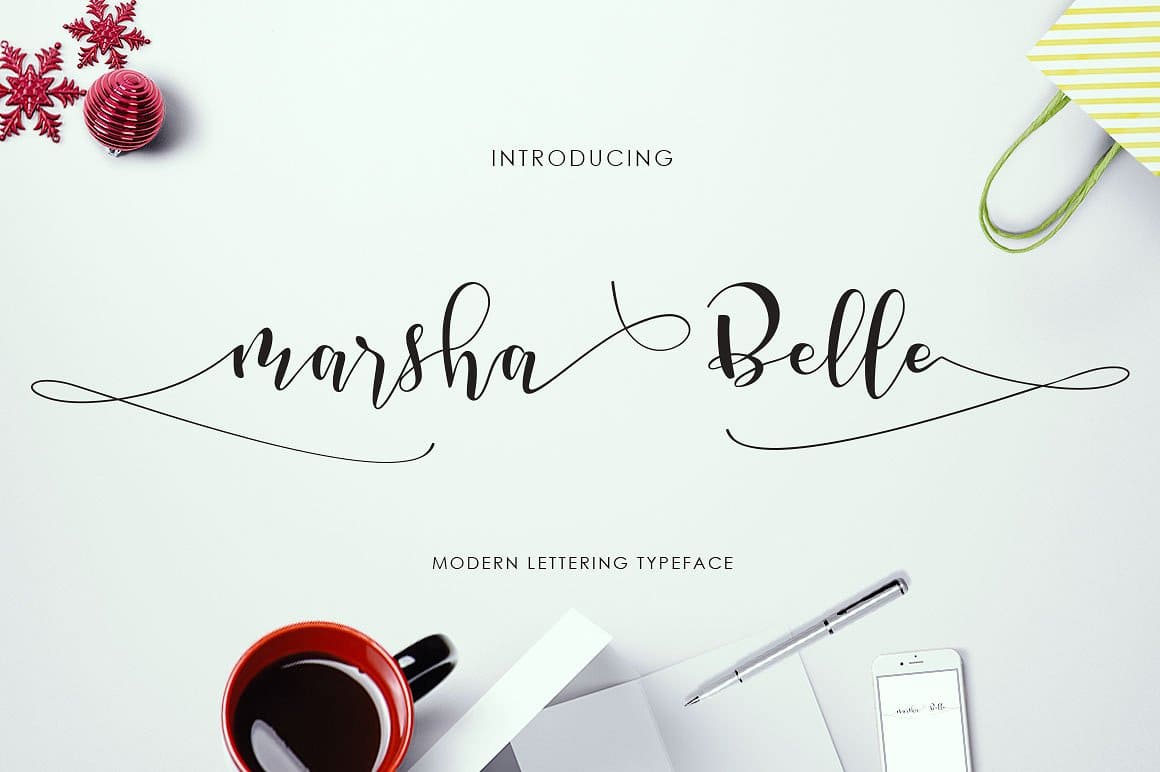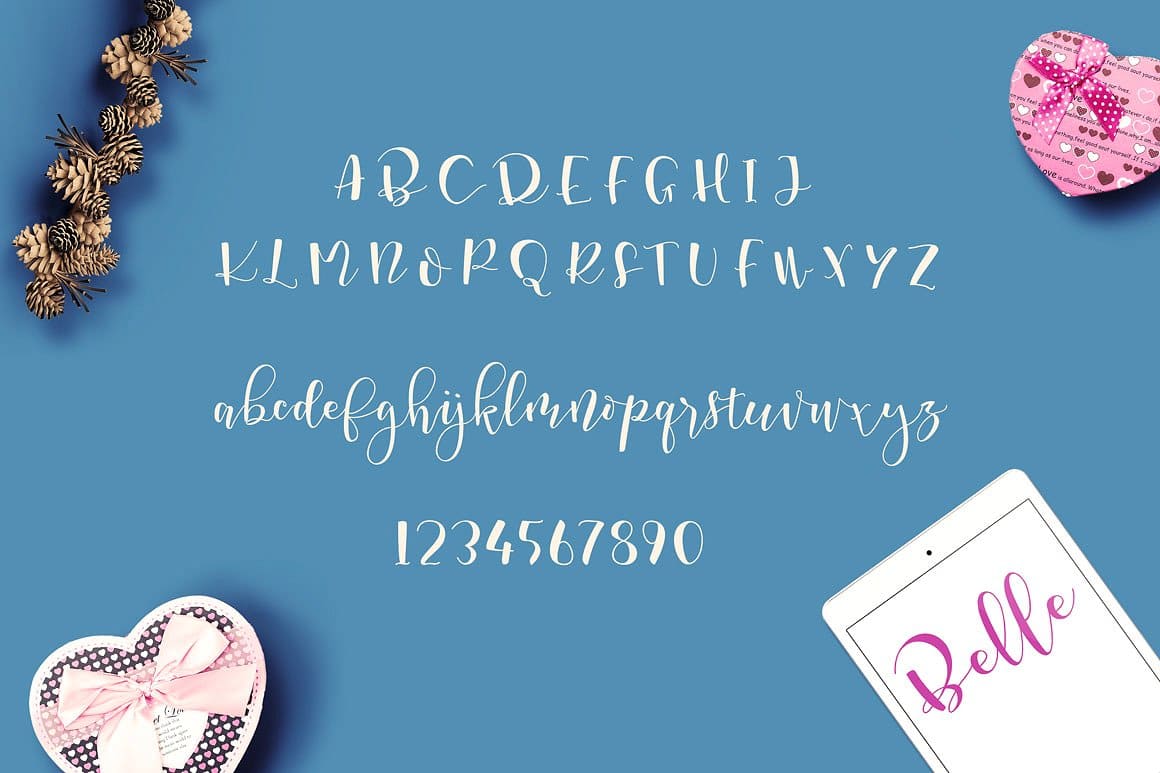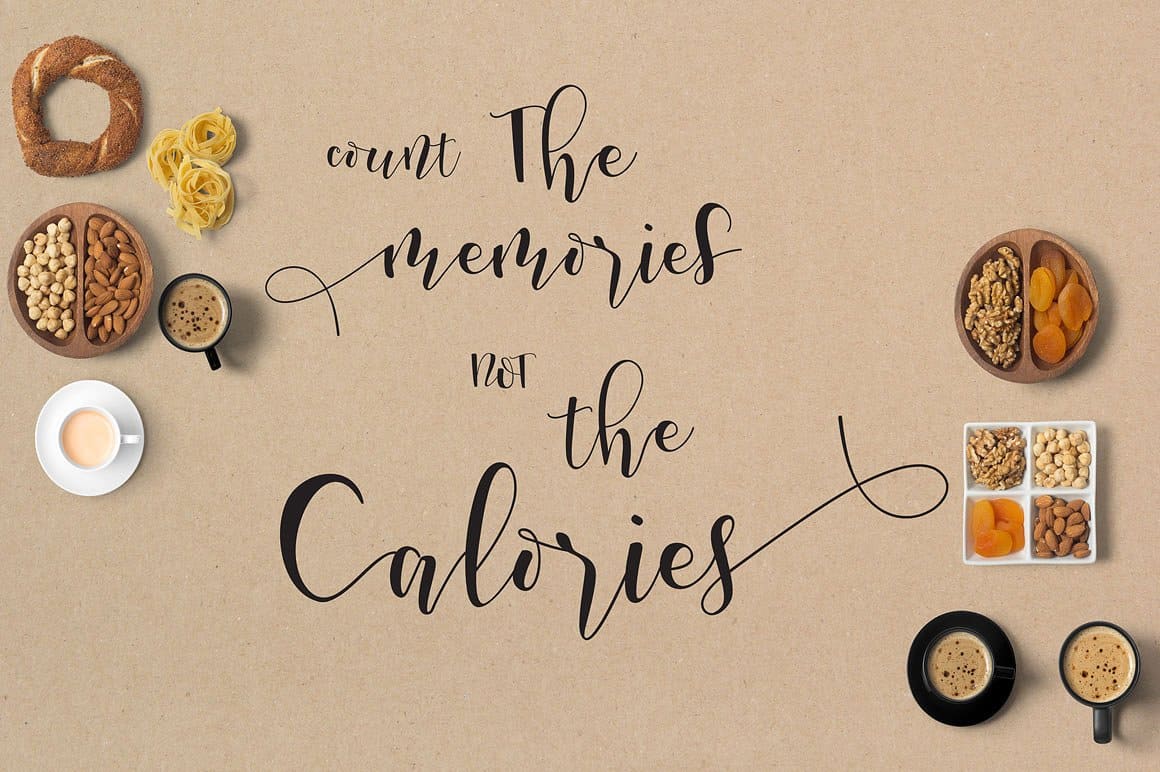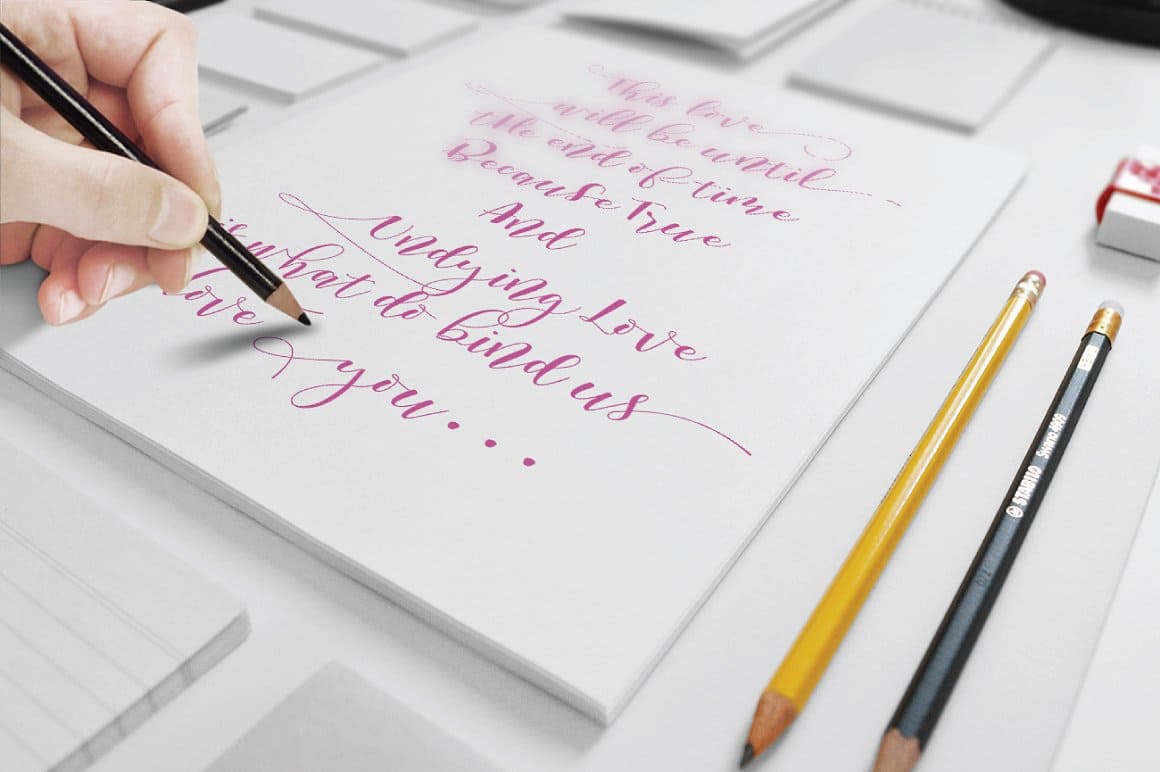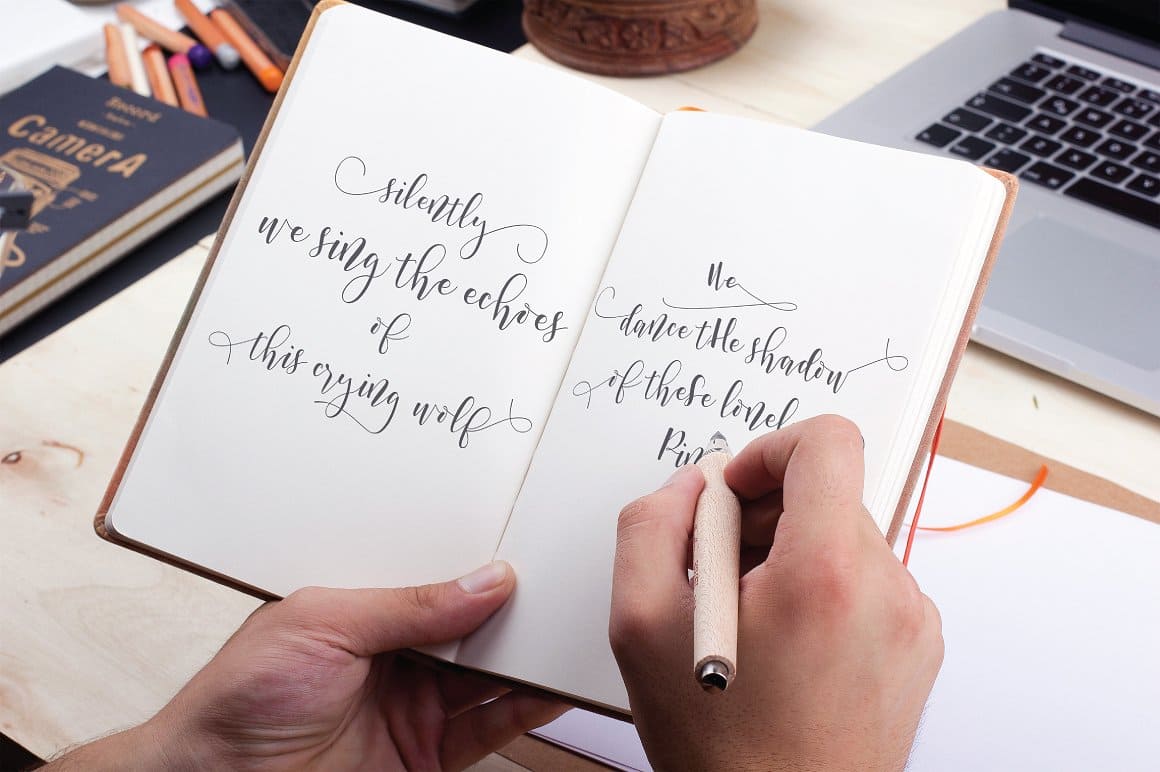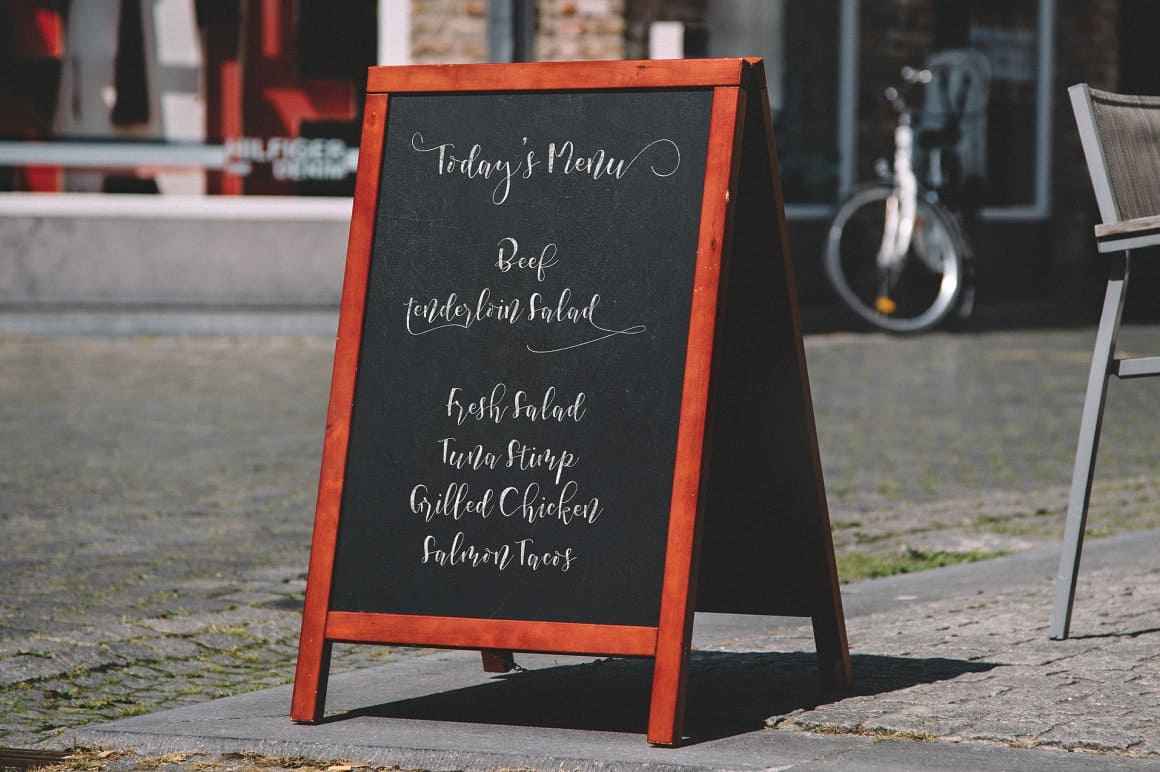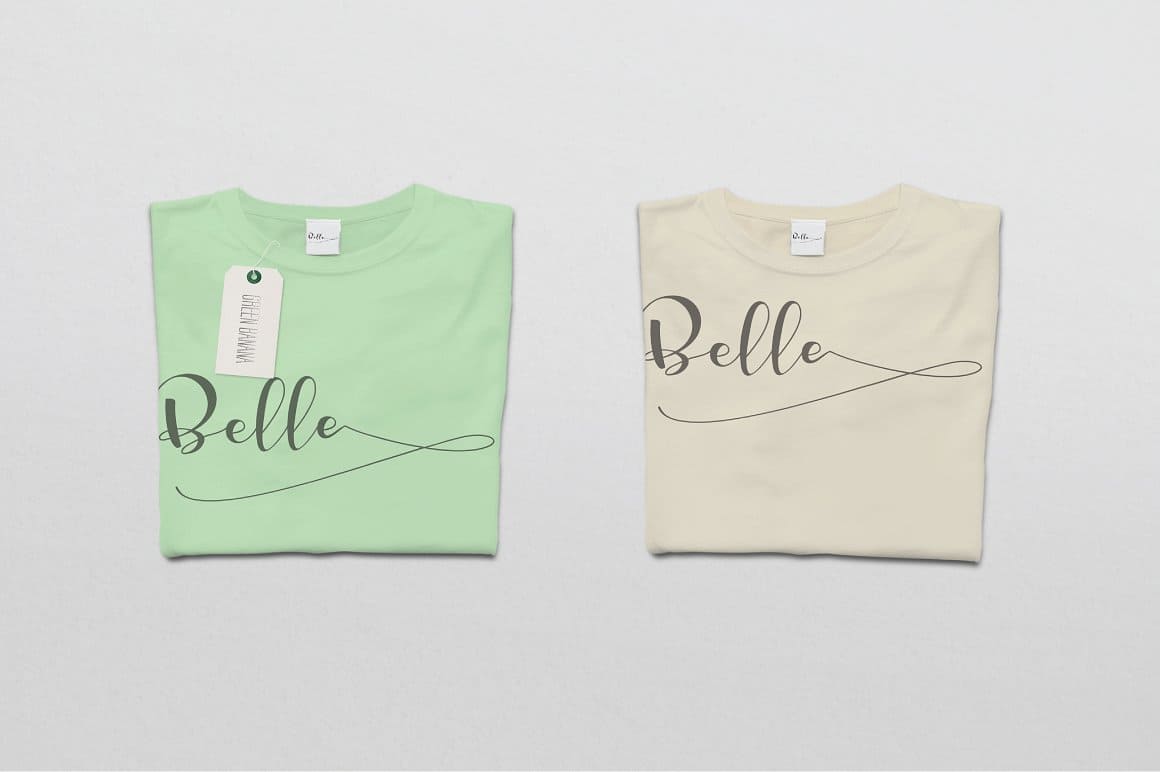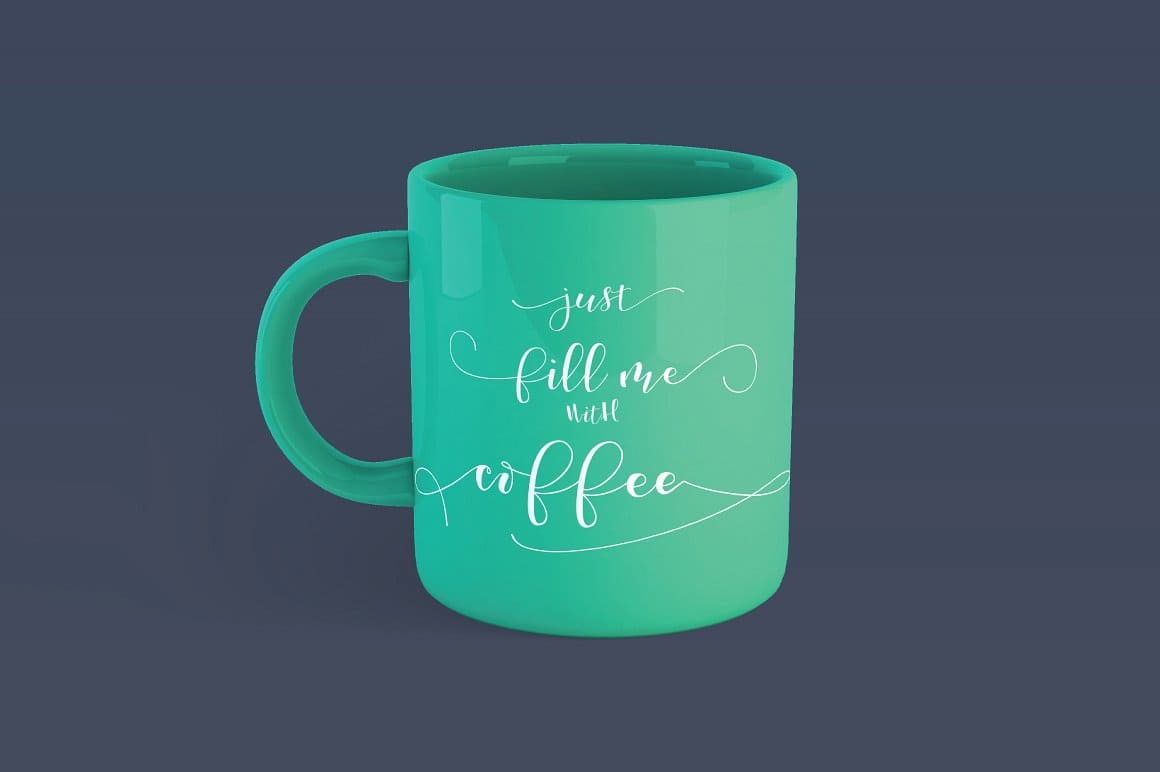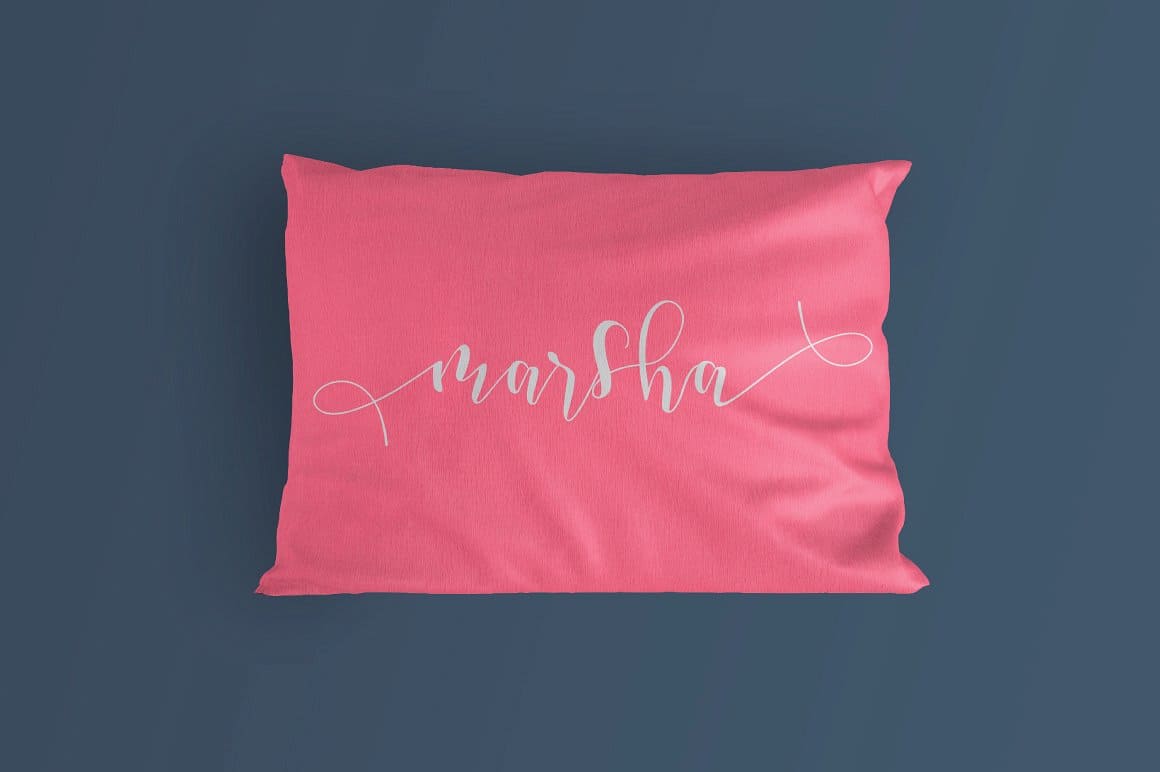
Marsha Belle Script (1 font)
Marsha Belle is designed with OpenType features, 486 glyphs, and 273 alternate characters. The font also includes Standard Ligatures and stylistic alternate characters allowing you to make each word look elegant and professional. All special characters can be accessed by using OpenType savvy programs such as Adobe Illustrator, Adobe InDesign, Quark Express, CorelDraw X6-X7, Microsoft Word 2010, or later versions.